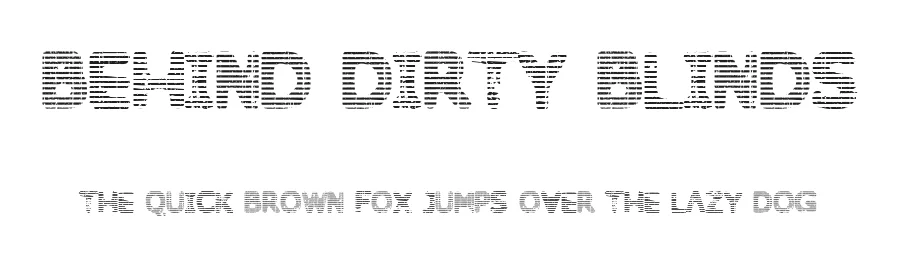
About News papers ST Font
News papers ST is a decorative font designed by Southype. It includes 236 glyphs, a regular weight, TTF (TrueType) format, and 209 languages. News papers ST is free to download; check the license details on this page before commercial use. Decorative fonts like News papers ST work best for logos, posters, packaging, and standout headlines.
News papers ST Font is a decorative font that shines as a display or heading face. Pair it with a clean sans-serif or serif font for body text β the contrast creates a clear hierarchy while the two styles stay balanced and easy to read.
News papers ST Font
by Southype